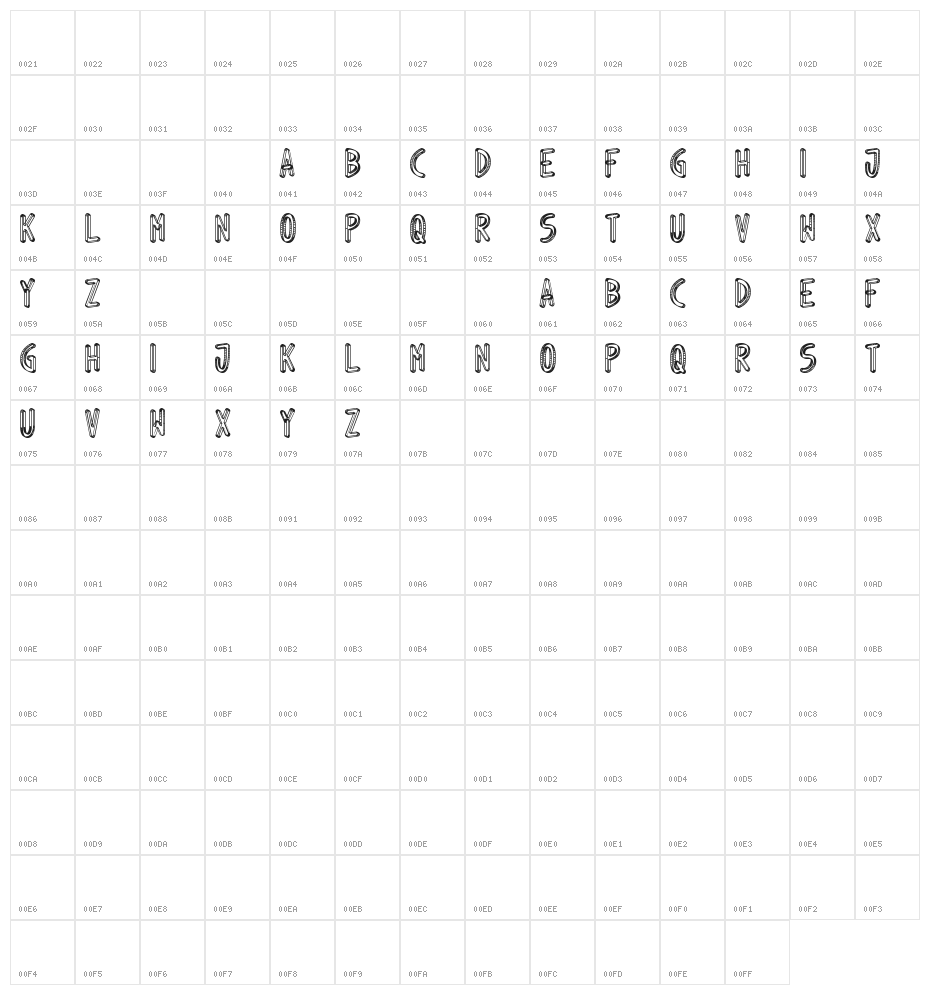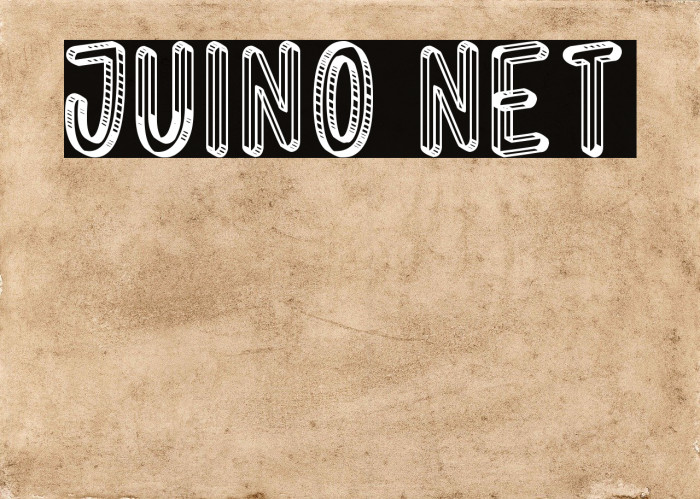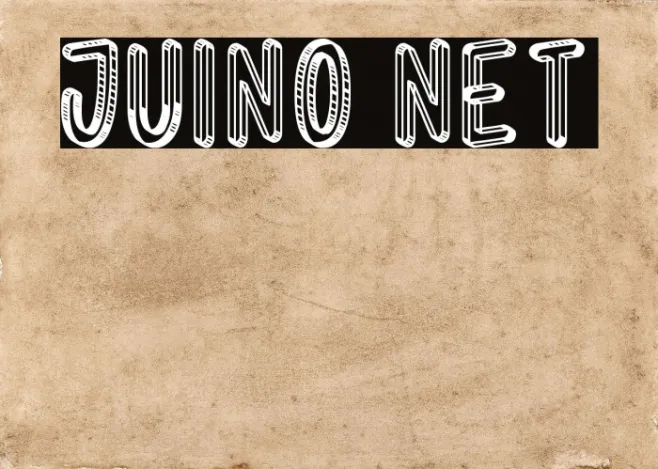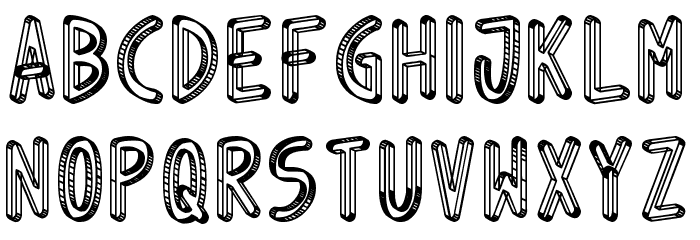
Juino net Font
Juino net Description
This font features a bold, three-dimensional design with a playful and decorative style. Each character is outlined with a thick black line, creating a shadow effect that gives depth and a sense of movement. The interior of the letters is filled with intricate patterns, including stripes and dots, adding a unique texture. The overall appearance is dynamic and eye-catching, making it suitable for creative and artistic projects. The uppercase letters are consistent in height and width, providing a uniform look across the alphabet. This font is ideal for projects that require a fun and engaging visual element.
| Proposed Projects | Ideal for posters, children's book covers, creative branding, and event invitations. |